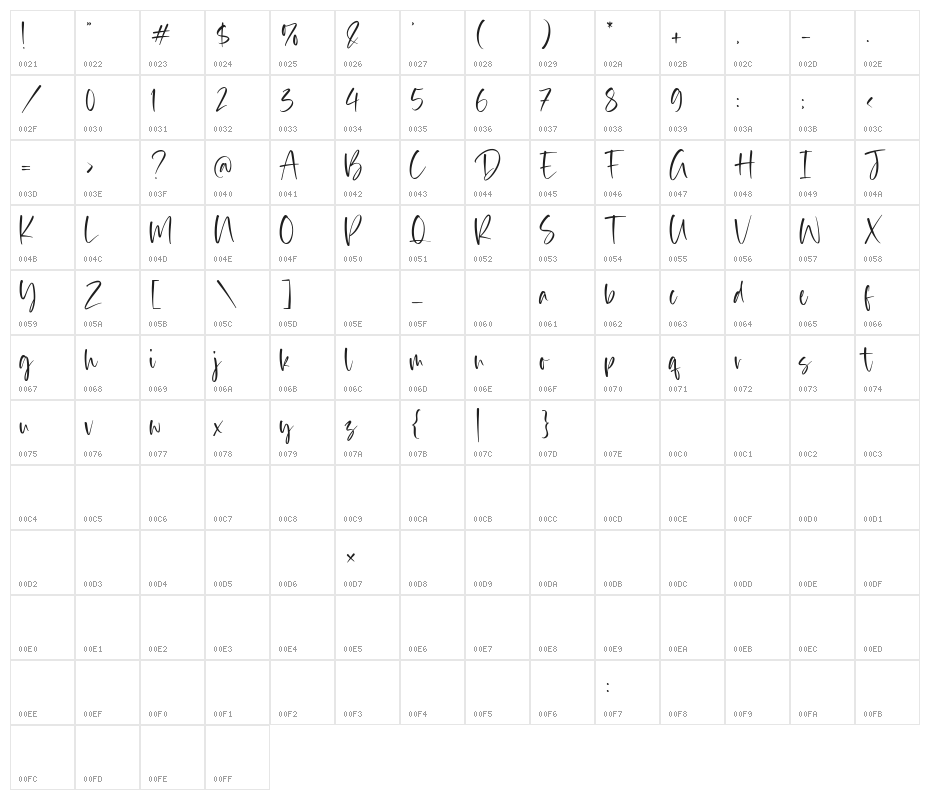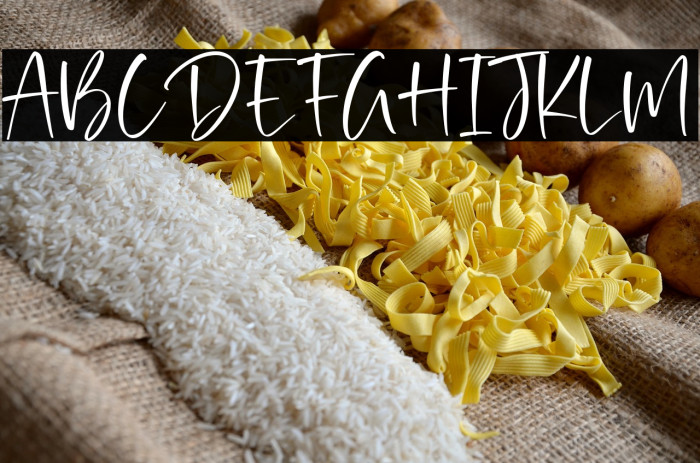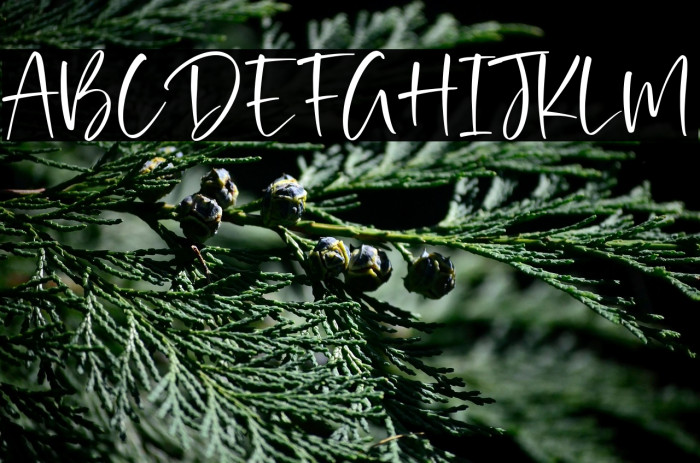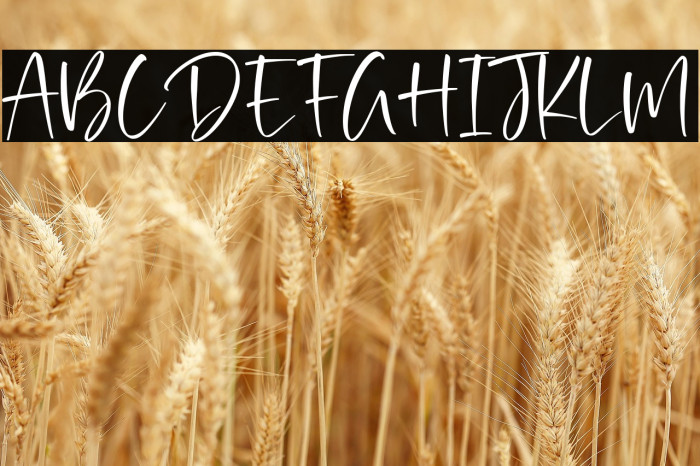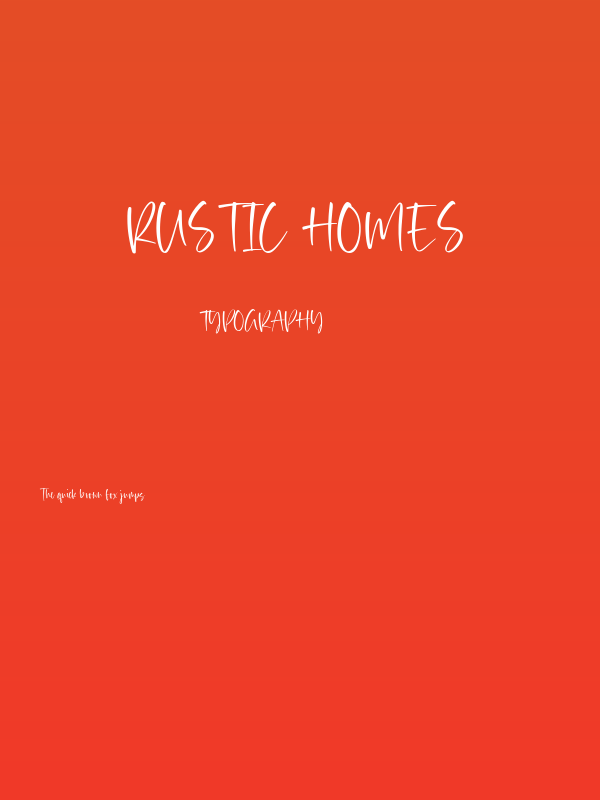
Rustic Homes Font
Rustic Homes Description
This font exudes a casual, handwritten charm with its flowing, cursive style. The letters are slightly slanted, giving it a dynamic and lively appearance. Each character is crafted with a smooth, continuous stroke, creating a sense of movement and fluidity. The uppercase letters are bold and prominent, while the lowercase letters maintain a consistent flow, enhancing readability. The numbers and special characters are designed to match the overall aesthetic, making it versatile for various applications. This font is perfect for projects that require a personal touch, such as invitations, greeting cards, or branding materials.
| Overall Style | Casual, Handwritten |
| Use Case | Headlines, Logos, Invitations |
| Proposed Projects | Ideal for invitations, greeting cards, personal branding, and creative projects. |